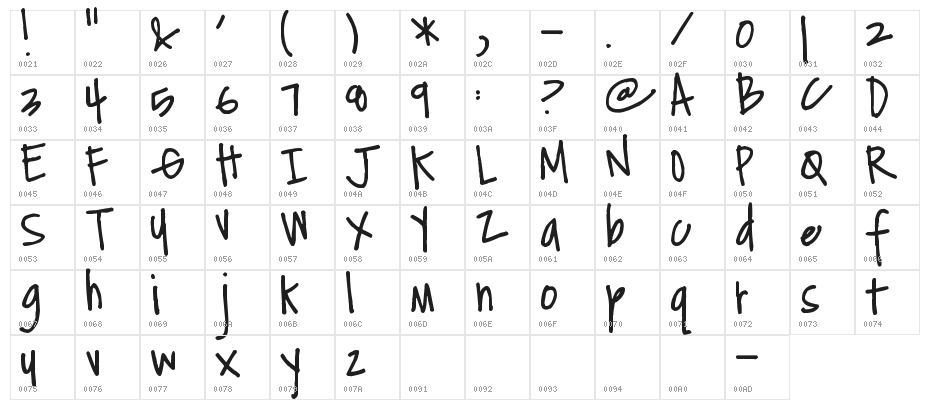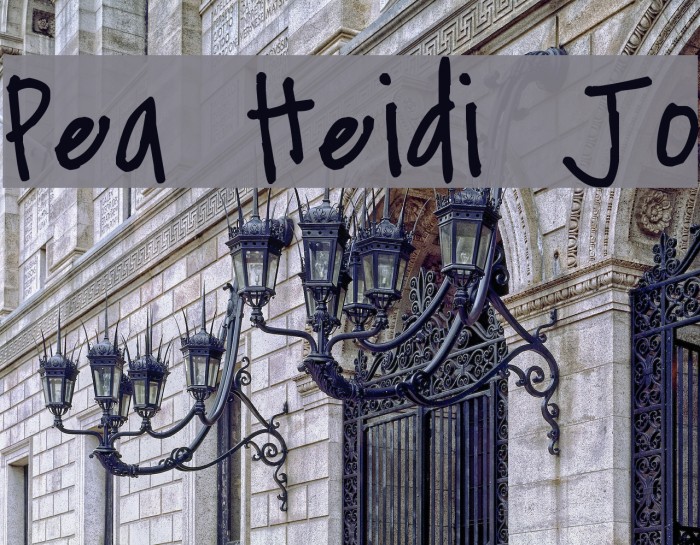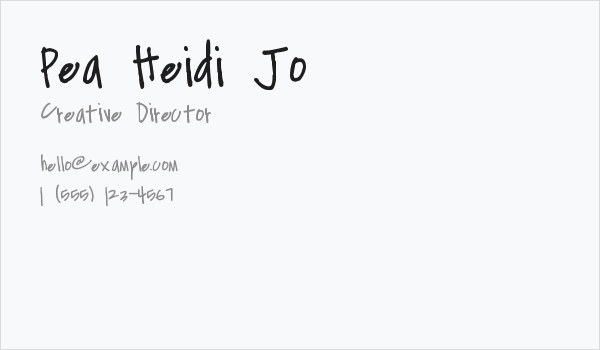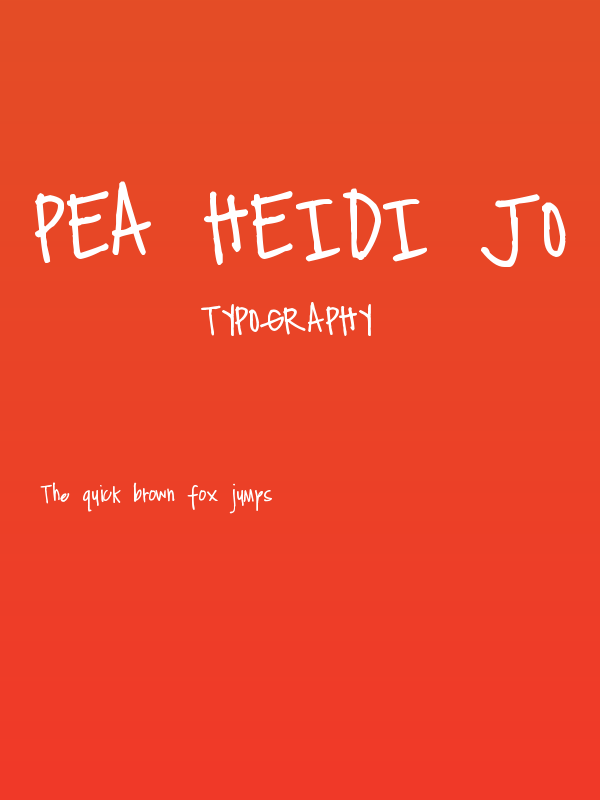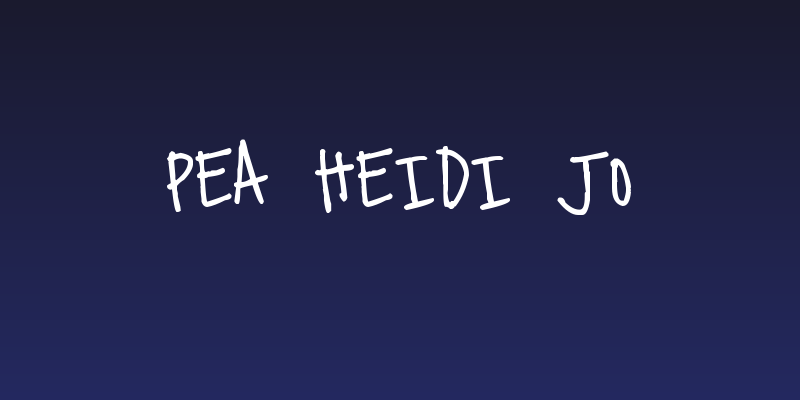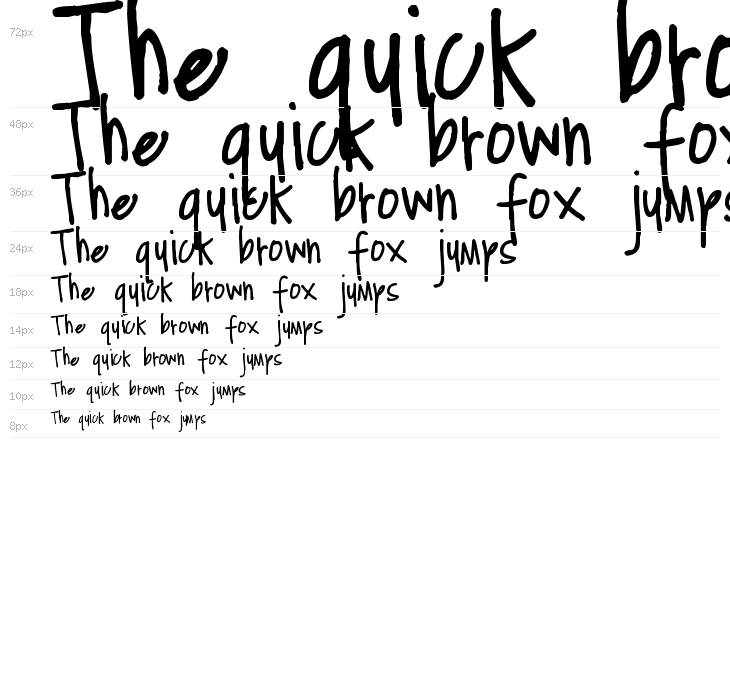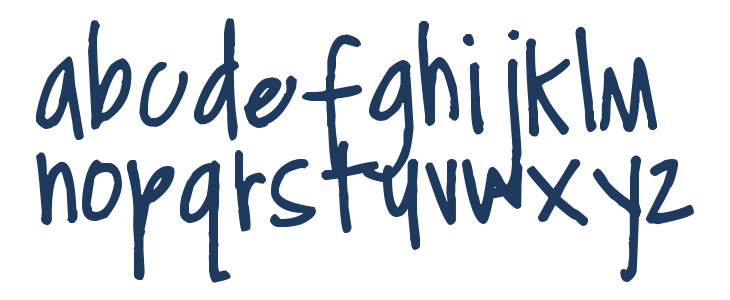
Pea Heidi Jo Font
Pea Heidi Jo Description
This font features a playful, handwritten style with a casual and informal appearance. The letters are slightly irregular, giving it a personal and authentic feel. The uppercase and lowercase letters are distinct, with a noticeable difference in size and shape. Numbers and special characters maintain the same whimsical style, making the font versatile for various uses. The strokes are consistent in thickness, contributing to a cohesive look across all characters. This font is ideal for projects that require a friendly and approachable tone.
| Use Case | Greeting cards, Personal notes, Informal branding |
| Proposed Projects | Great for personal notes, greeting cards, children's books, and informal branding. |